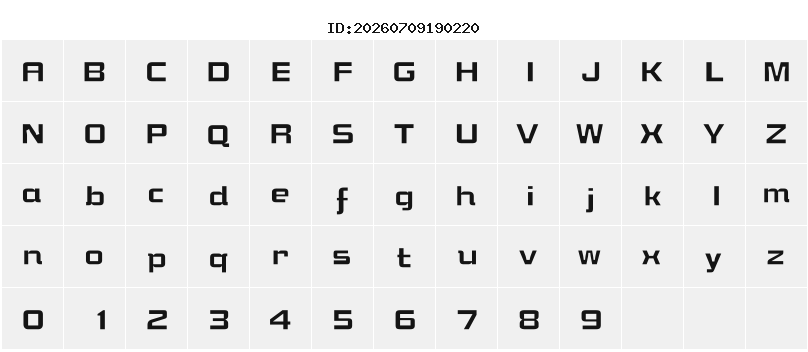
• Font Name: DFPZongYiW5-B5
About DFPZongYiW5-B5.ttf
DFPZongYiW5-B5.ttf is a modern, elegant sans-serif font designed for ultimate readability and visual harmony. Perfect for branding, headlines, web design, and print materials.